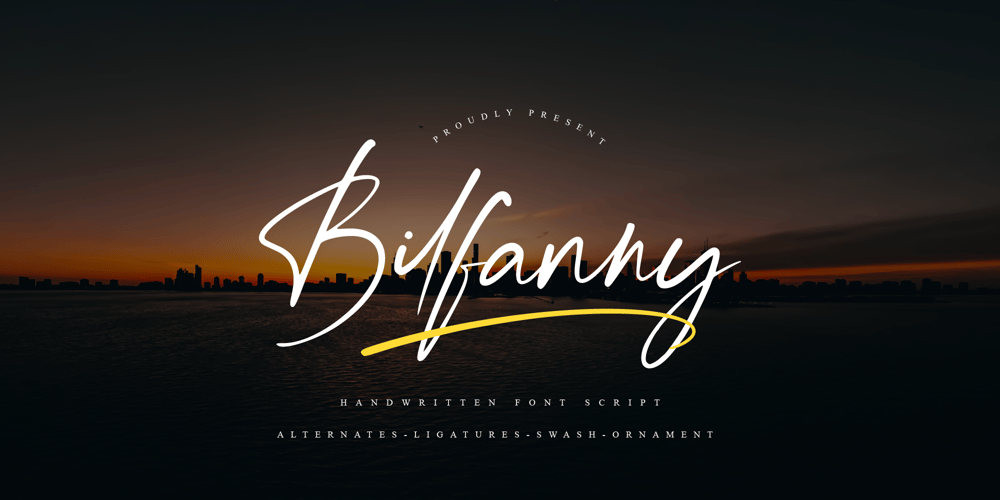
Bilfanny Font Family was designed by ryan creative and published by ryan creative. Bilfanny contains 1 styles and family package options. Hi creative greetings… Introducing the latest fonts.Bilfanny is a script typeface with digitally drawn strokes with a brush preasure that give the font a natural, realistic look Get a simple and fun digital script font touch with glyphs and open type features a Swash binding style, plus Added Ornament, Alternate and Ligature . This font is more decorative and artistic suitable for art or fashion brands. It can be used for various purposes. such as brand name, Wedding, Invitation, product promotion business, etc.FEATURES;-Uppercase, Lowercase, Foreign Support, Numbers and Punctuation.-Otf, Ttf & Woff files-Alternative, Swash, Ligature & Ornament.-Works on PC.-Simple installation.-Accessible in Adobe Illustrator, Adobe Photoshop. Adobe InDesign, it even works in Microsoft Word.-Fully accessible without additional design software.Bilfanny is encoded with Unicode PUA, which allows full access to all additional characters without having to design any special software. Mac users can use the Font book, and Windows users can use the Character map to view and copy any extra characters to paste into your favorite text editor/app.Thank you for visiting;)